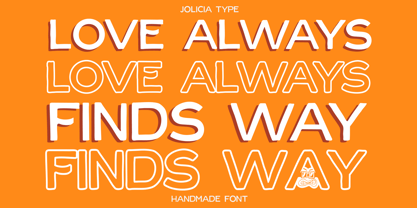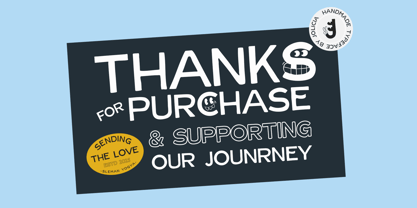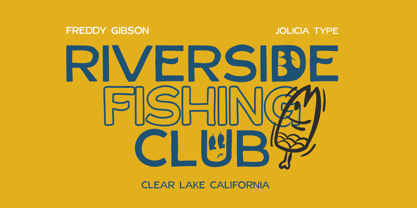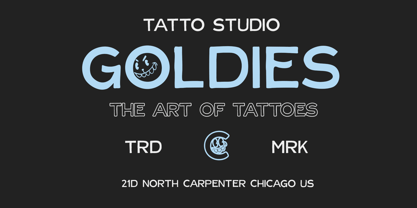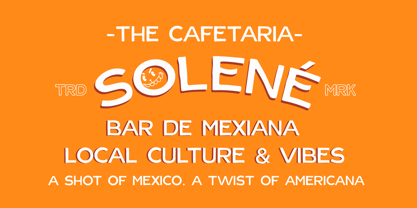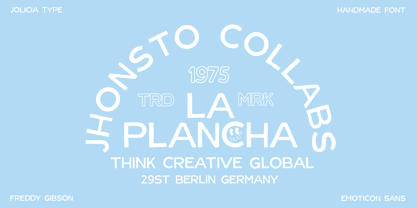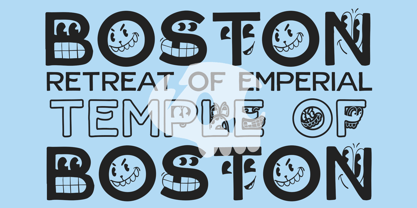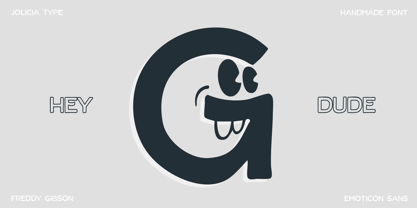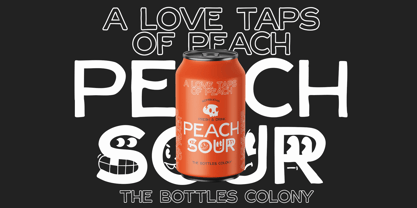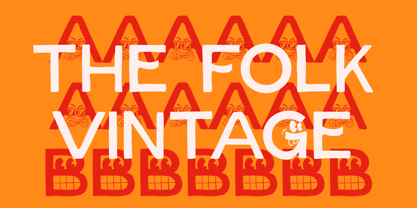
Freddy Gibson
von Jolicia Type
Die Schriftfamilie Freddy Gibson wurde von Laire Banyu, Dyaharum Pungki Revitasari entworfen und von Jolicia Type veröffentlicht. Freddy Gibson enthält 2 Stile und Familienpaketoptionen.
Meet Freddy Gibson, a handmade sans serif font crafted with a natural, organic touch. Every stroke is carefully drawn by hand, giving the typeface an authentic and approachable personality. perfect for branding, packaging, and creative displays.
What makes Freddy Gibson truly stand out is its playful lowercase set, where select characters are infused with expressive, emoji-like facial elements. These subtle yet whimsical features add life and emotion to your words, making your typography not just readable, but memorable.
The font comes in two styles:
Fill Regular – the base style with solid, clean strokes.
Negative – an inverse version that adds visual punch and versatility for high-contrast designs.
Whether you’re designing for fun, emotion, or uniqueness, Freddy Gibson is your go-to choice for something bold, human, and full of charm.